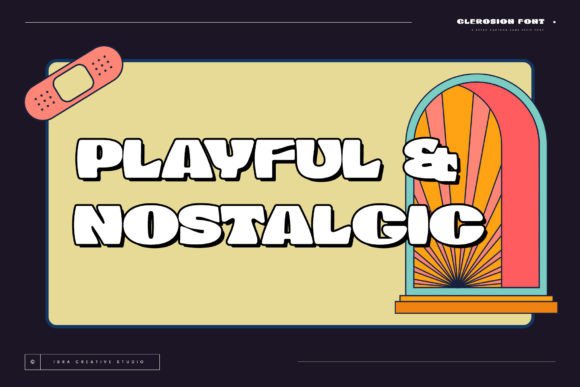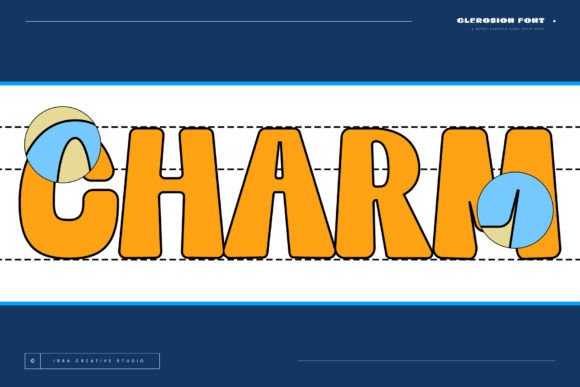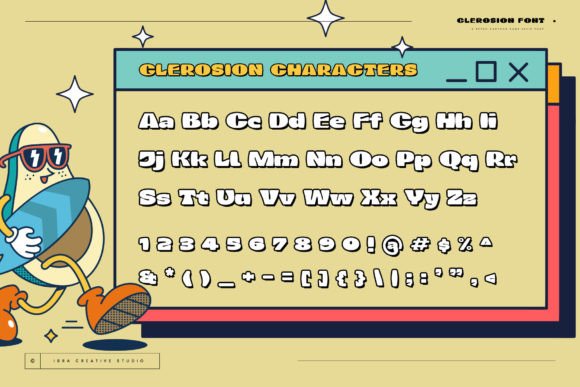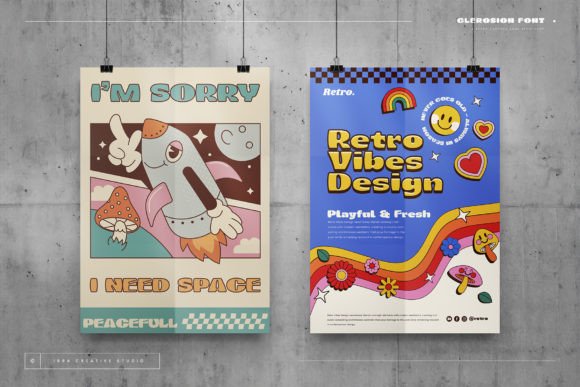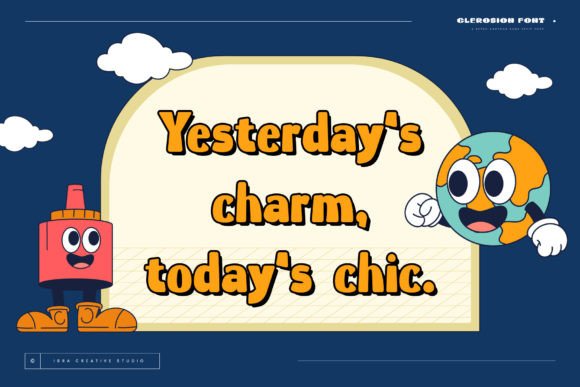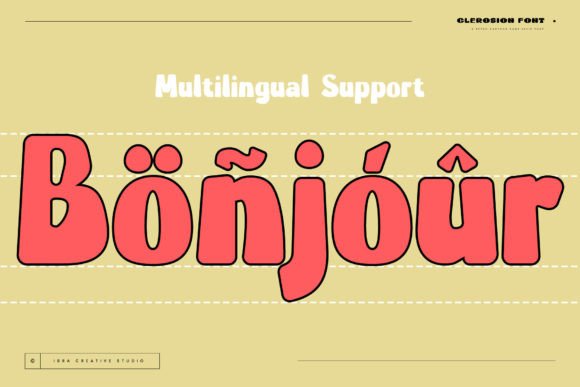
Glerosion Font: A Playful and Nostalgic Retro Cartoon Sans-Serif Font
In the world of typography, fonts play a crucial role in conveying the tone and aesthetic of a design. For designers and crafters looking to add a touch of nostalgia and playfulness to their projects, the Glerosion font is an excellent choice. This retro cartoon sans-serif font exudes a whimsical charm that effortlessly transports viewers to a bygone era.
The Charm of Glerosion Font
Glerosion font is characterized by its whimsical and rounded letterforms, which capture the essence of classic cartoon aesthetics. The font’s design is reminiscent of beloved animated shows from the mid-20th century, evoking memories of childhood and carefree days. The rounded edges and smooth curves of Glerosion’s letters create a friendly and approachable feel, making it perfect for designs that require a lighthearted and playful touch.
A Timeless Simplicity with a Vintage Flair
One of the standout features of Glerosion font is its ability to strike a harmonious balance between timeless simplicity and distinct vintage flair. The font’s clean and simple design ensures that it remains legible and versatile, making it suitable for a wide range of creative projects. At the same time, Glerosion’s vintage charm adds a unique character to designs, setting them apart from more modern and generic fonts.
Versatility of Glerosion Font
Glerosion font is an incredibly versatile typeface that can be used in various creative projects. Its playful and nostalgic charm makes it perfect for:
- Children’s book designs: Glerosion font is ideal for kids’ books, as it adds a fun and whimsical touch to the text.
- Branding and logos: The font’s vintage flair makes it suitable for logos and branding projects that require a unique and memorable character.
- Posters and flyers: Glerosion font is perfect for designing eye-catching posters and flyers that require a playful and attention-grabbing typography.
- Crafting and DIY projects: The font’s nostalgic charm makes it a great choice for crafting and DIY projects, such as handmade cards, gift tags, and scrapbooking.
Tips for Using Glerosion Font Effectively
To get the most out of Glerosion font, here are some tips for using it effectively:
- Pair it with contrasting fonts: Combine Glerosion font with a contrasting font to create visual interest and add depth to your design.
- Experiment with colors: Glerosion font looks great in bold, bright colors. Experiment with different color schemes to find the one that works best for your project.
- Use it in moderation: While Glerosion font is playful and fun, it’s essential to use it in moderation. Too much of a good thing can be overwhelming, so balance it with other design elements.
Glerosion font is a unique and charming typeface that adds a touch of nostalgia and playfulness to any design. Its versatility, simplicity, and vintage flair make it an excellent choice for designers and crafters looking to create engaging and memorable projects. Whether you’re working on a children’s book, branding project, or crafting DIY project, Glerosion font is sure to bring a smile to your audience’s faces.